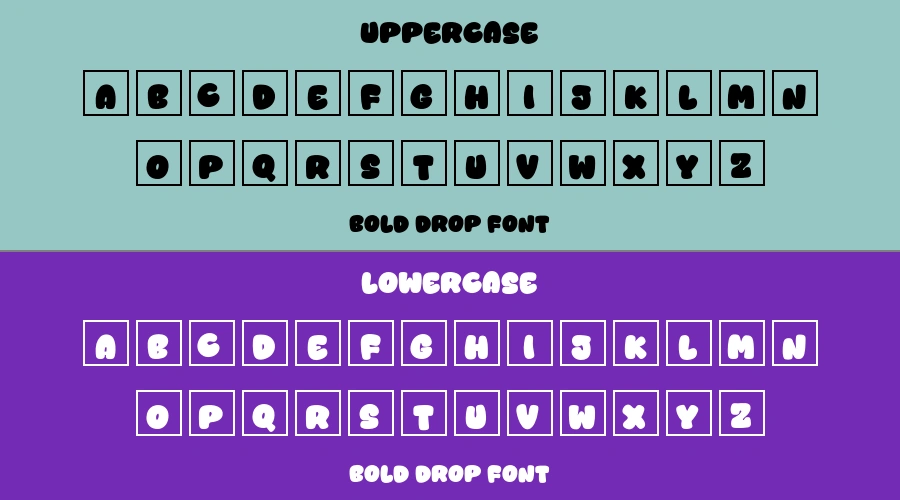
About Bold Drop Font
Designed with precision, Bold Drop Font merges geometric precision with color consistency in every character. This versatility makes it particularly effective for literary works, where accuracy and traditional values directly impact communication quality. Each letterform demonstrates meticulous craftsmanship.
Technical excellence shines through elements like harmonic curves and multiple weights, enhancing typographic versatility. In campaign headers settings, Bold Drop Font proves its worth through superior impact retention. The thoughtful execution of apex design and scientific authority ensures professional results.